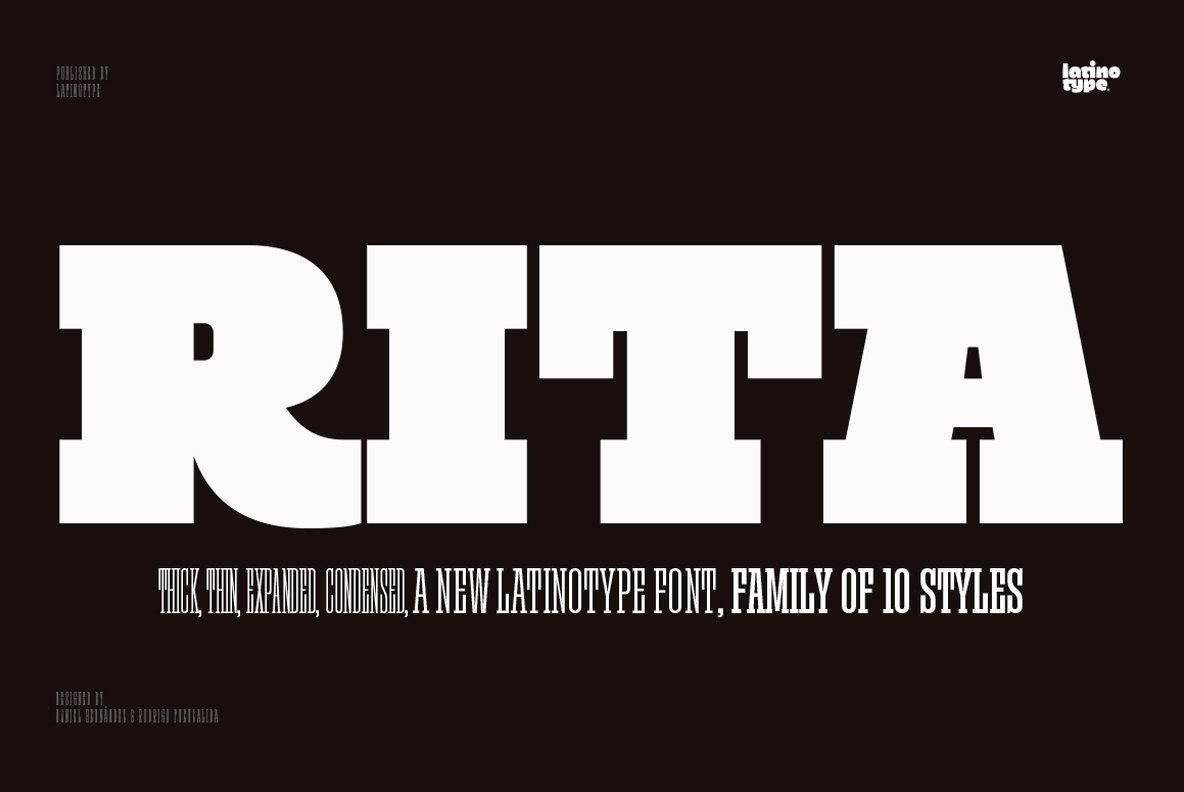
Rita Font
Rita Font is perfect for vintage boutique branding, retro cafe signage, classic diner menus, nostalgic event posters, pin-up style marketing, mid-century modern design, vintage fashion labels, and timeless lifestyle campaigns.
What makes Rita Font exciting is its charming retro personality that captures the glamour and optimism of mid-20th century design. The font features distinctive letterforms with period-authentic styling and vintage character that evoke classic Hollywood, 1950s diners, and the golden age of American design. Its nostalgic appeal and timeless elegance communicate authenticity, quality craftsmanship, and enduring style, making every message feel like a treasured piece from a more glamorous era.
The Rita Font family includes regular weight with uppercase and lowercase letters, numerals, punctuation marks, and special characters. Premium versions often feature stylistic alternates and vintage-inspired decorative elements that enhance the authentic retro aesthetic perfect for nostalgic branding applications.
This delightful vintage typeface brings instant nostalgia and classic appeal to any retro-themed project. Rita Font Free Download delivers exceptional results for brands seeking to communicate timeless quality, authentic heritage, and vintage charm to customers who appreciate classic American style and craftsmanship.
The nostalgic character of Rita Font makes it particularly valuable for vintage-inspired restaurants, classic car dealerships, and heritage brands. Its excellent readability ensures menu items and product information remain clear while maintaining the distinctive retro aesthetic that appeals to customers seeking authentic vintage experiences and quality craftsmanship.
Vintage brand marketers appreciate how Rita Font effortlessly conveys authenticity and timeless appeal. The font's classic proportions and period-accurate details create trustworthy brand materials that establish connections with audiences who value heritage, quality, and the enduring style of mid-century American design.
The versatile nostalgia of this typeface extends to antique shops, vintage clothing stores, and classic entertainment venues where retro authenticity enhances brand credibility. Rita Font Free Download provides creative professionals with an essential tool for developing memorable, heritage-focused designs that resonate with audiences who embrace vintage style, classic craftsmanship, and the timeless elegance of mid-century American culture in their lifestyle and purchasing decisions.